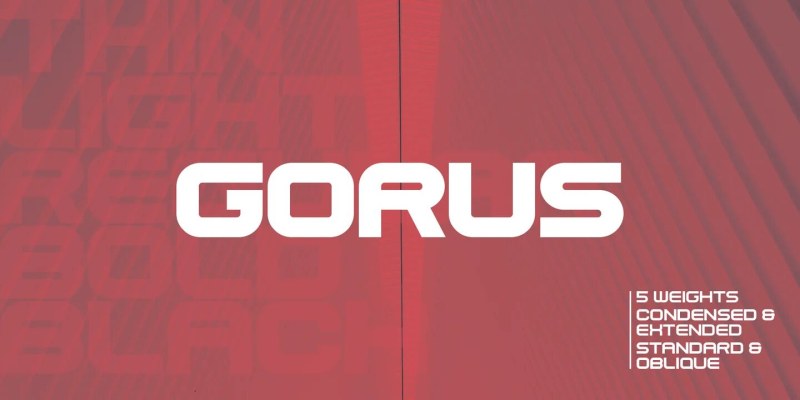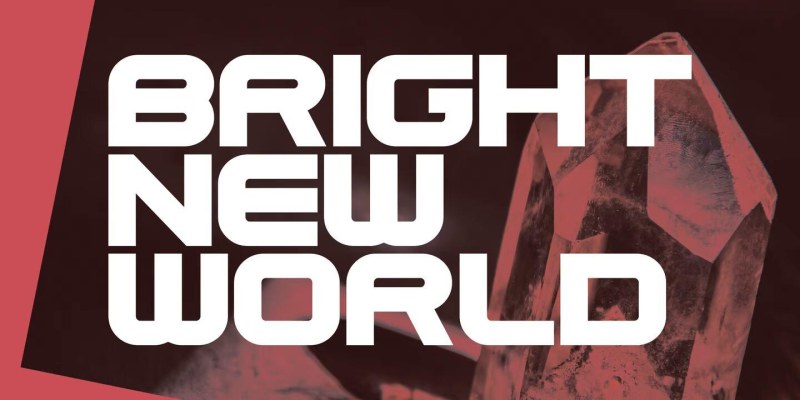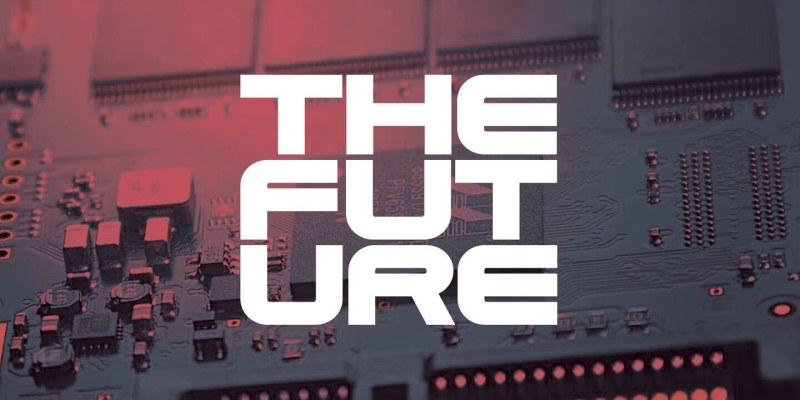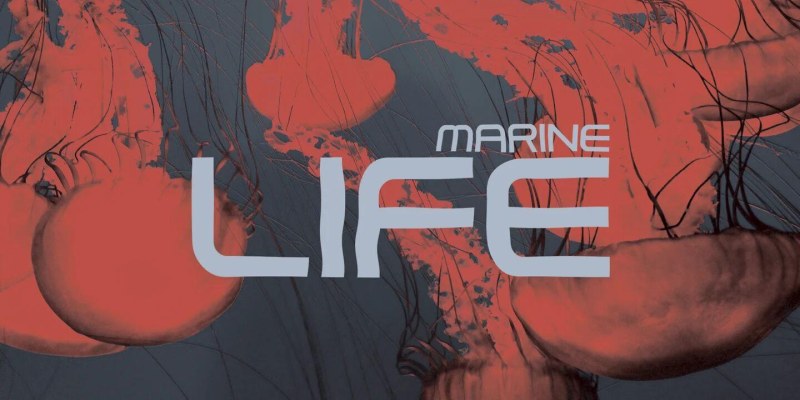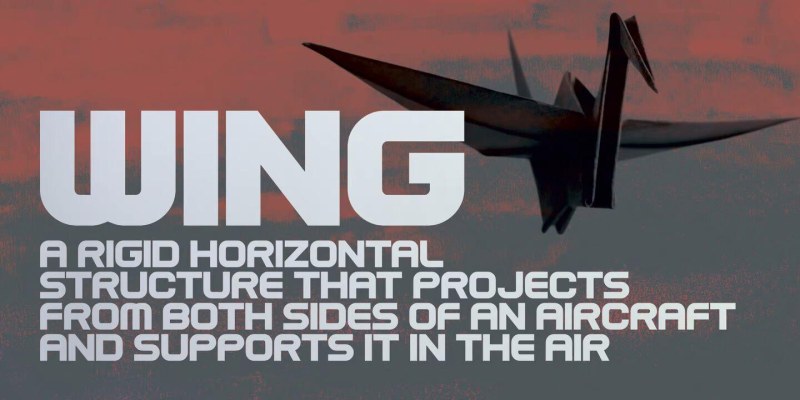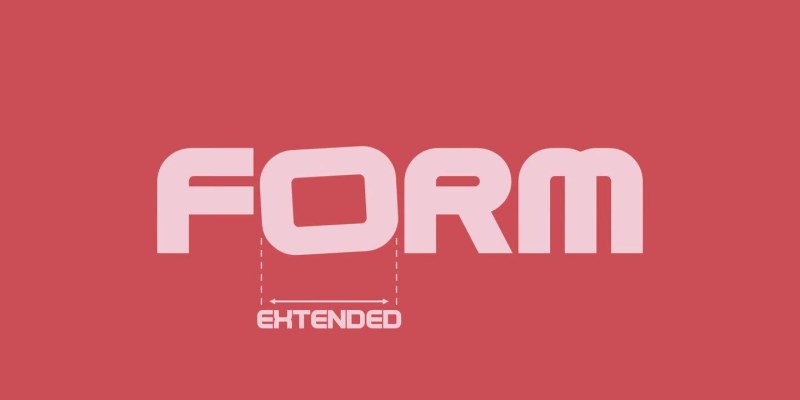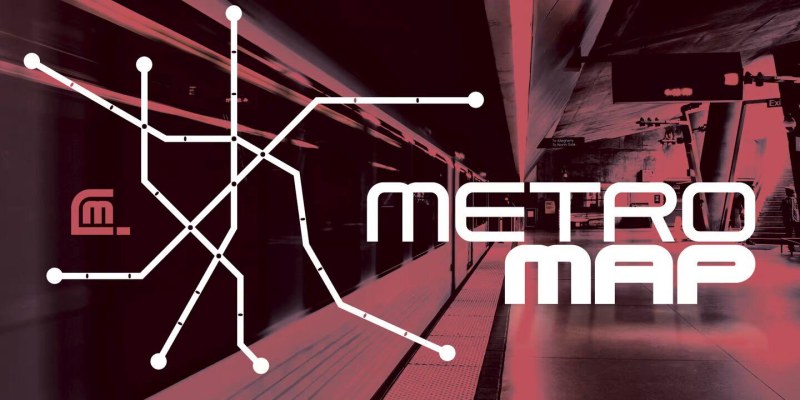
Gorus Font Family
Gorus is a variable-width sans serif type family that’s been created to provide a powerful but flexible tool for creating strong headlines, posters, logos, and display text with tight spacing and maximum space coverage. This contemporary geometric family in 15 styles brings a modern and strong impression to your design.
Gorus Font Family is a Sans Serif Fonts font that brings a professional and versatile look to your projects. Gorus is a variable-width sans serif type family that’s been created to provide a powerful but flexible tool for creating strong headlines, posters, logos, and display text with tight spacing and maximum space coverage.